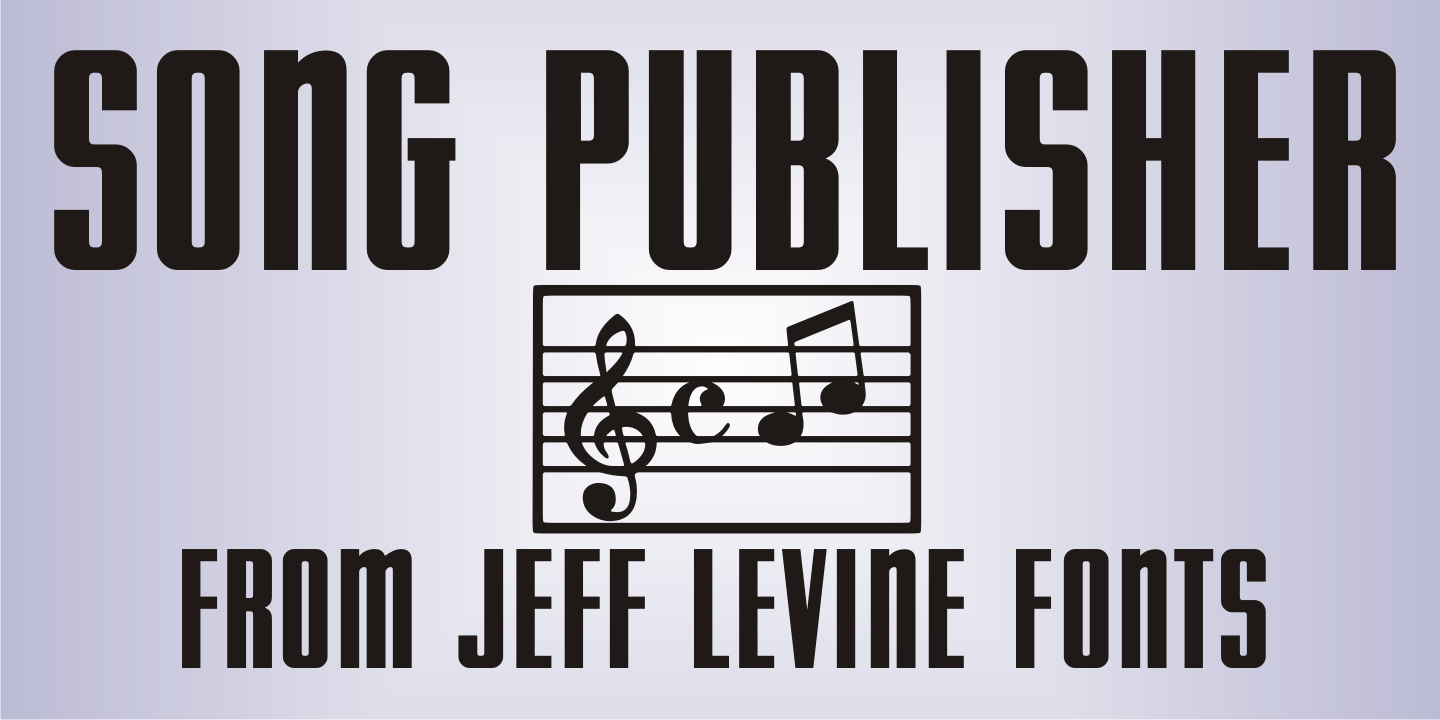
Song Publisher
Song Publisher JNL features a design based on the 1945 Art Deco-era hand lettered sheet music title 'When the Old Gang's back on the Corner (Singin' Sweet Adeline Again)'.
It's a good thing sheet music wasn't sold by the word count found in song titles, because this twelve word example would have been more costly than titles such as 'Nola', 'Tenderly' or 'Ciribiribin'.
Song Publisher JNL Regular by Jeff Levine Fonts